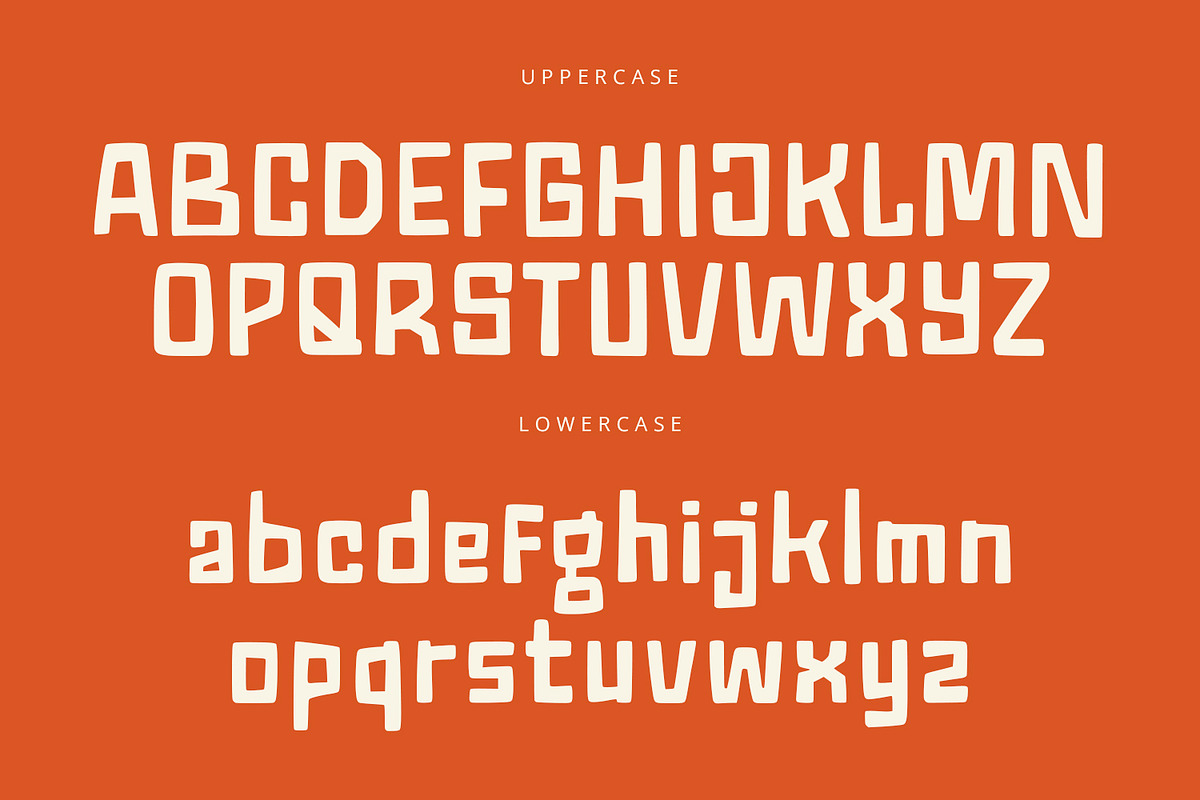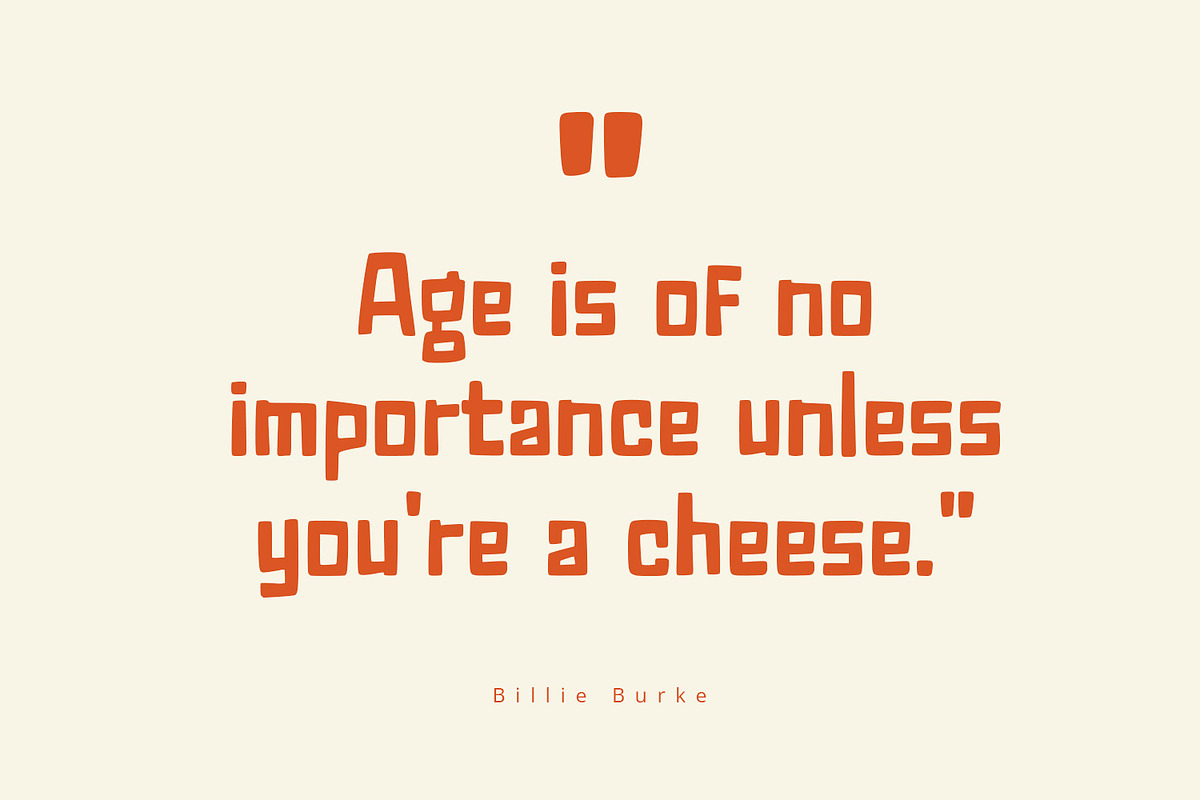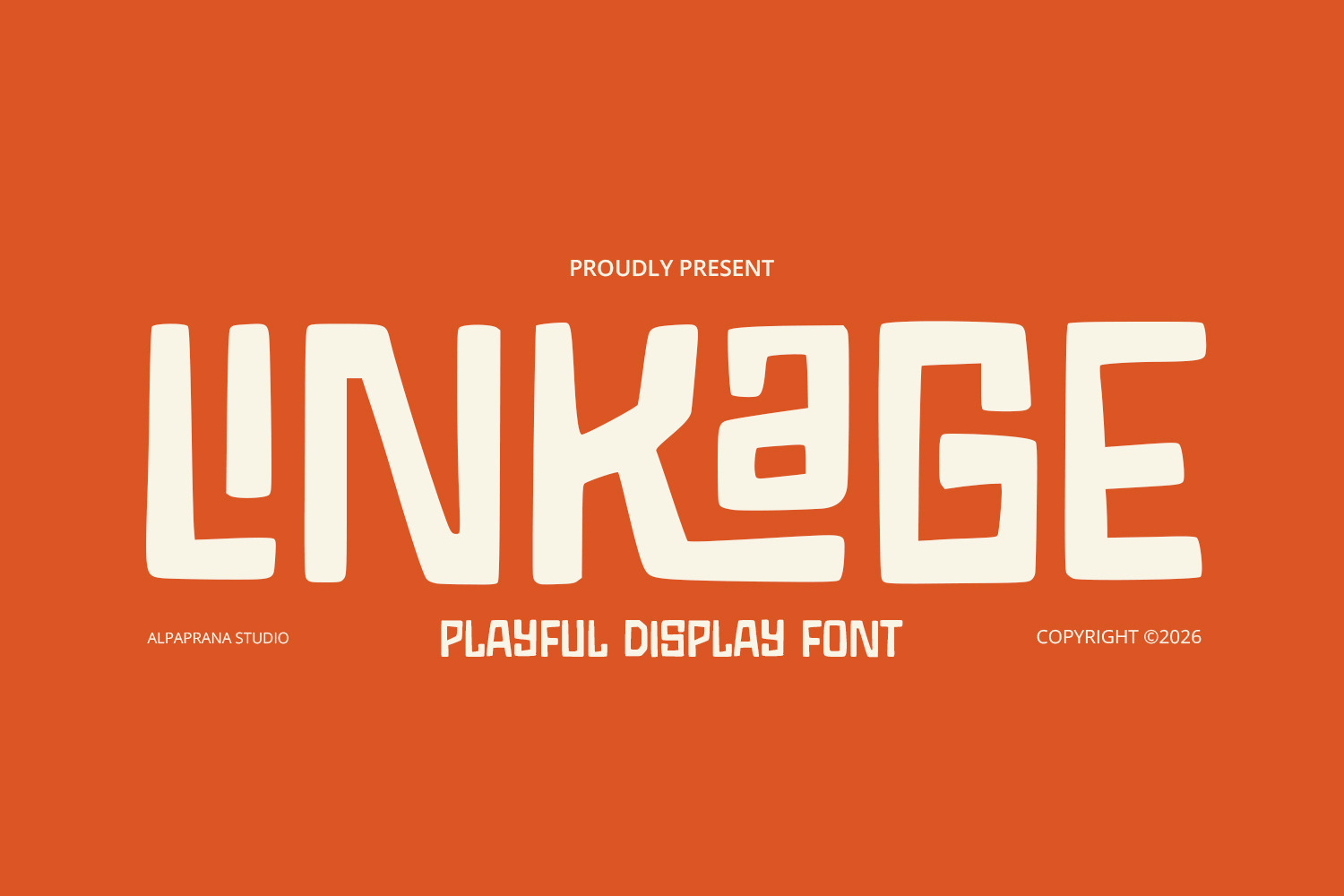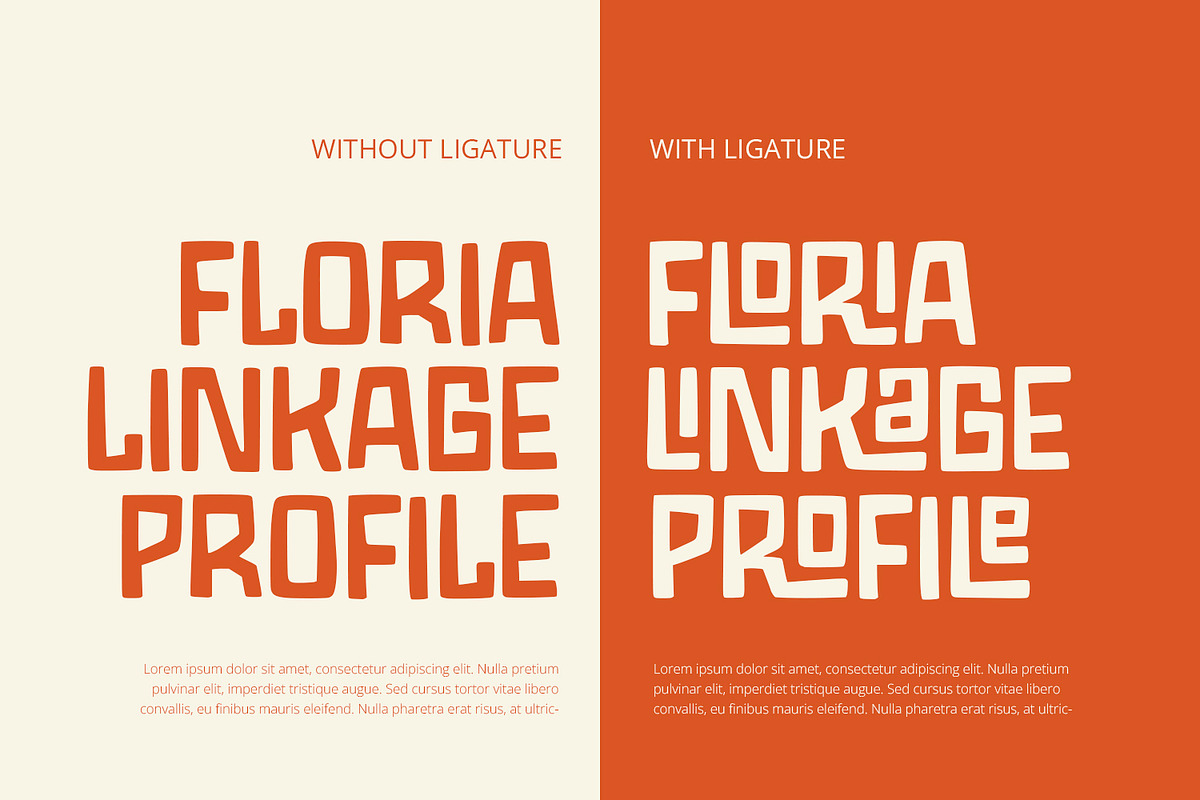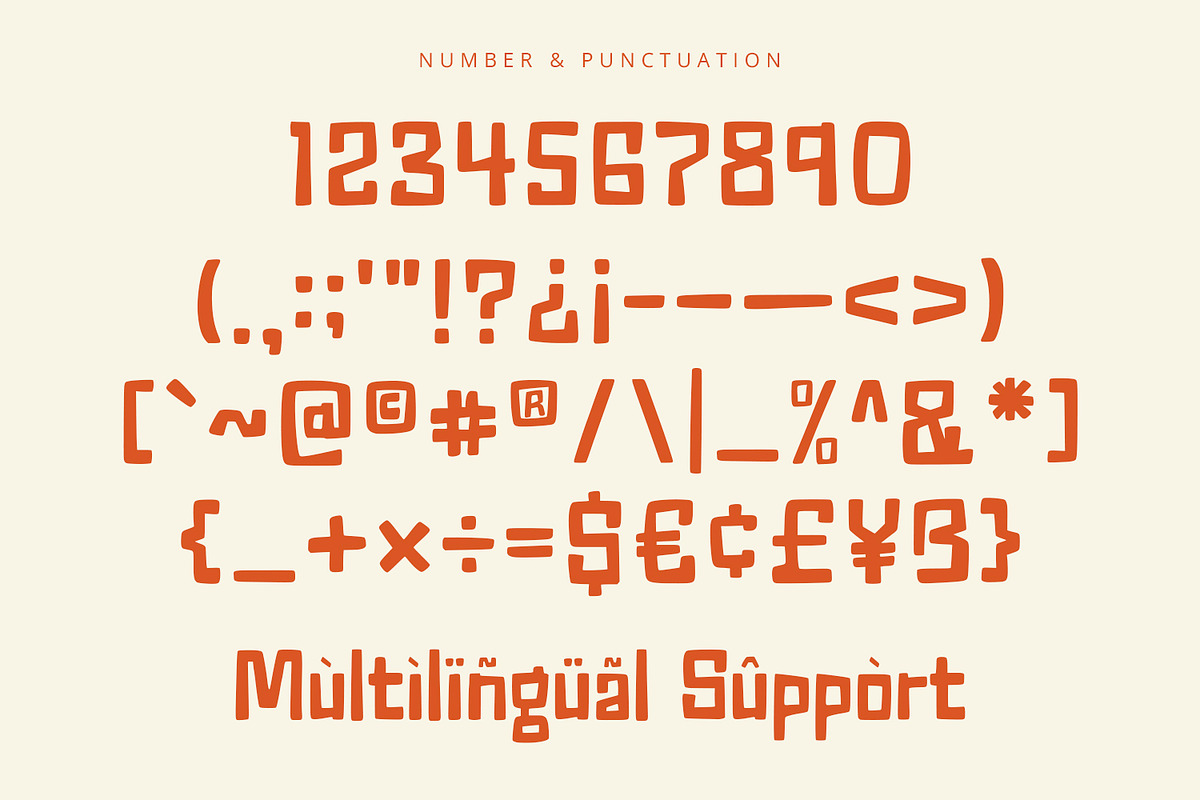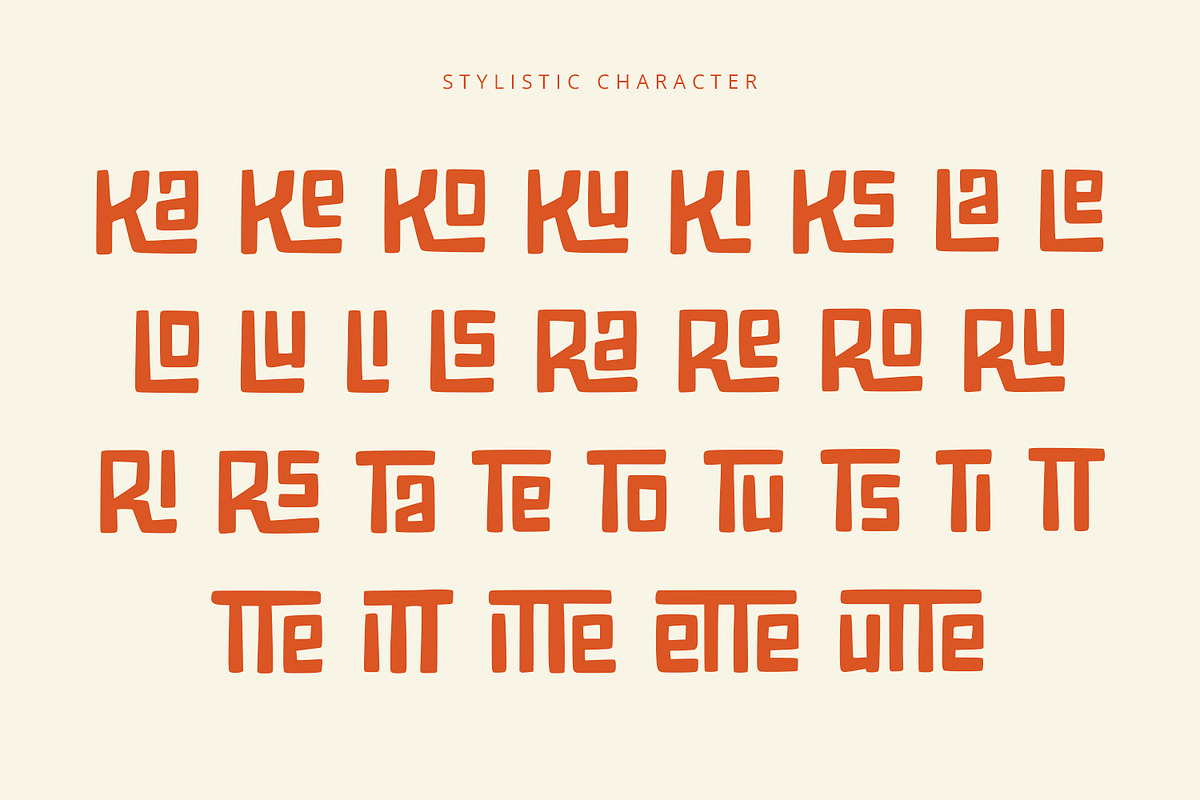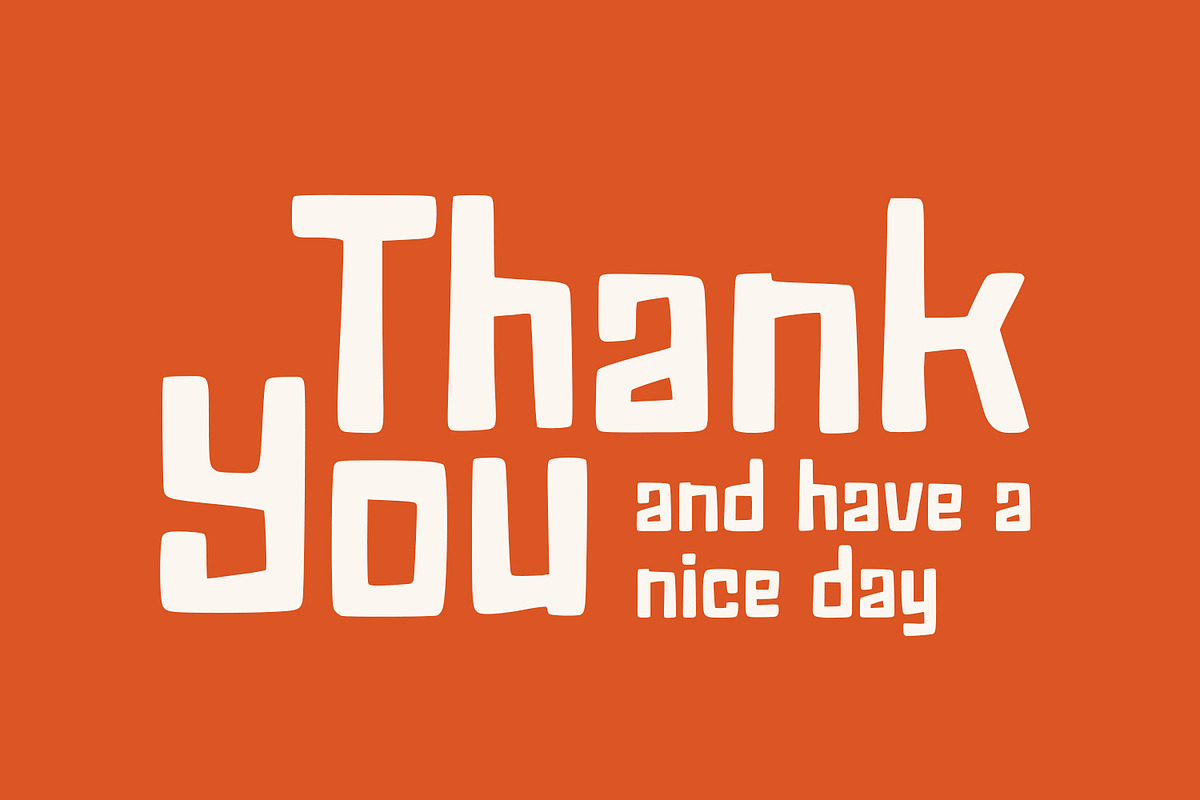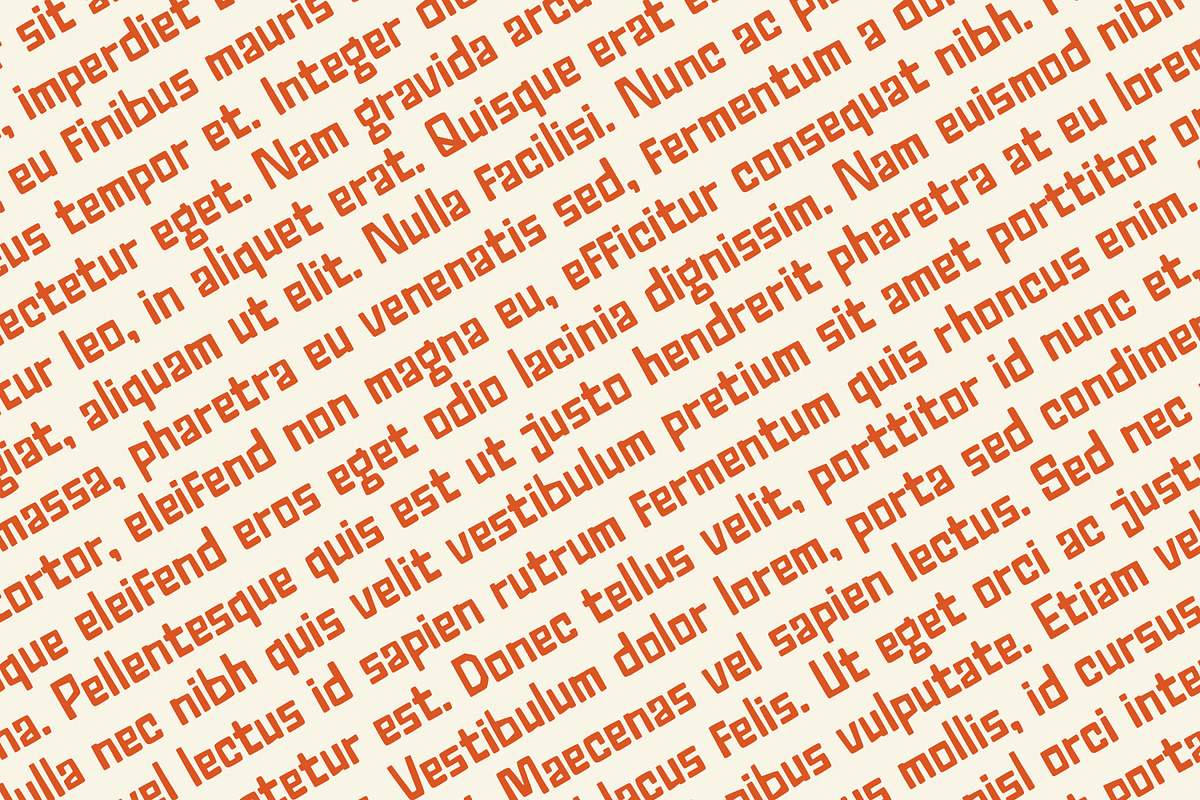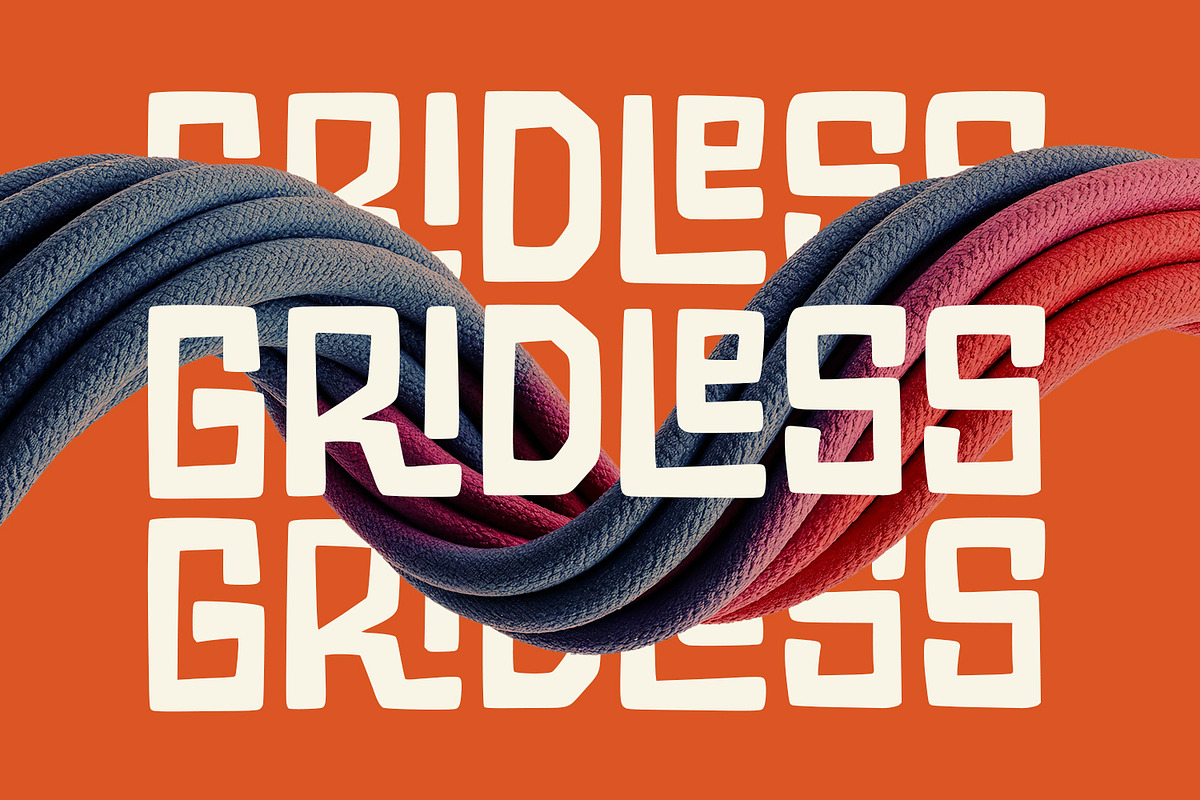
Linkage - Display Font
Linkage is display font with modern and playful feels. It will be perfectly used for Branding, Logo Design, Lettering, Logotype, Clothing, Poster, magazine, packaging, posters, shopping bags, t-shirts, book covers, photography, special events and other design project.